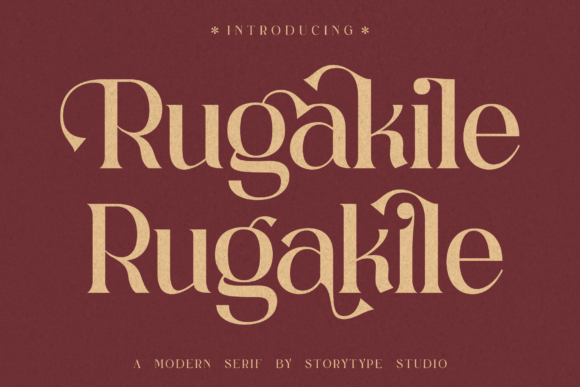
**Introducing Rugakile: The Epitome of Sophisticated Elegance for Your Digital Creations**
Journey into a world of unparalleled typography with Rugakile, a captivating serif font that exudes modern flair and a timeless allure. Its meticulously crafted curves and graceful flourishes ignite a symphony of visual delight, transforming your digital creations into masterpieces of elegance.
Unleash your creativity with Rugakile, the font that elevates your designs to new heights. Whether you seek to craft an unforgettable logo, captivate your audience with striking fashion branding, or weave enchanting tales in your magazines, Rugakile effortlessly enhances every project it adorns.
For those seeking a touch of sophistication in their lettering, Rugakile is the answer. Its delicate lines and flowing strokes bring a touch of grace to your words, inviting your readers to immerse themselves in a world of refined beauty.
Rugakile's versatility extends beyond mere aesthetics. Its robust character set empowers you to express yourself with nuance and precision. From heartwarming quotes that resonate to thought-provoking articles that ignite minds, Rugakile effortlessly carries your message with style and impact.
**Step into a realm of limitless creativity with Rugakile.**
- Elevate your designs with a touch of sophistication.
- Captivate your audience with unforgettable branding.
- Craft enchanting tales that leave a lasting impression.
- Express yourself with nuance and precision.
- Experience the magic of typography at its finest.